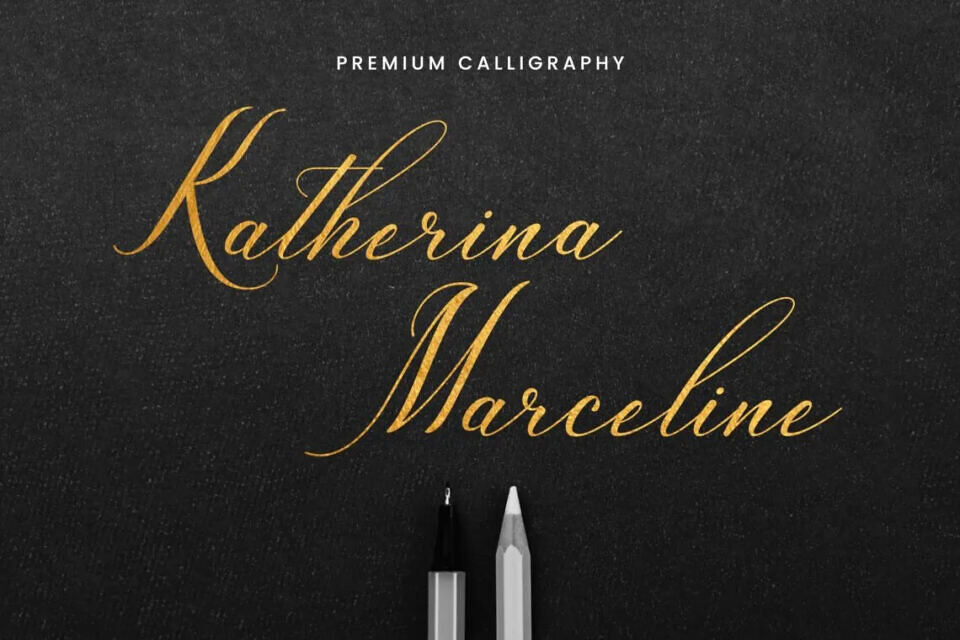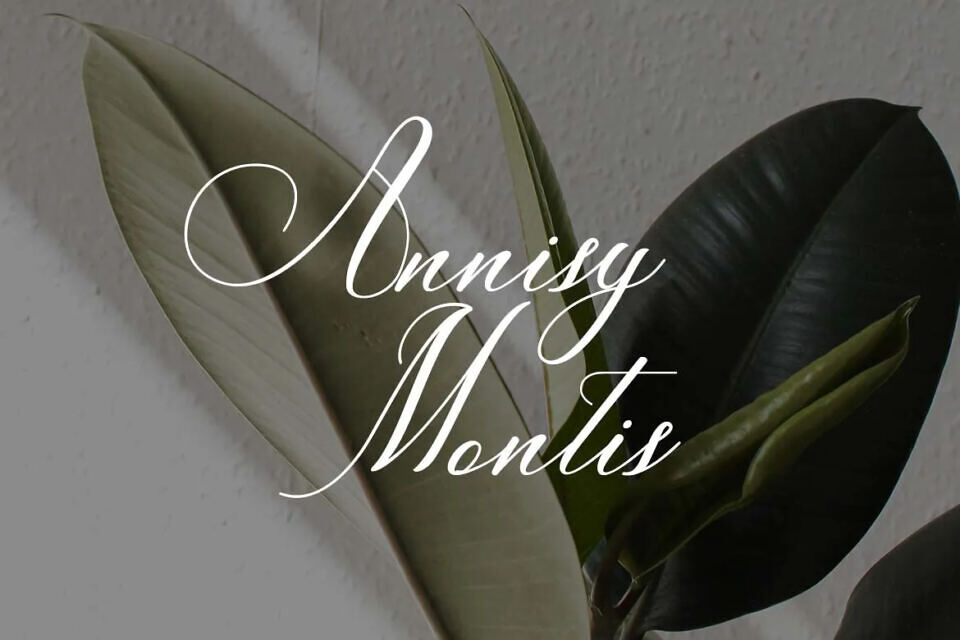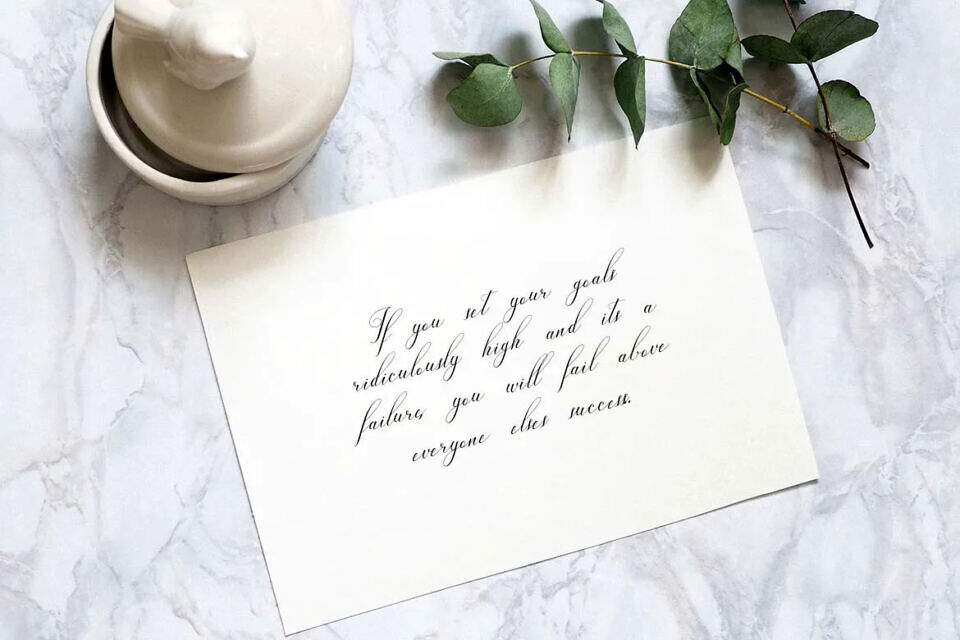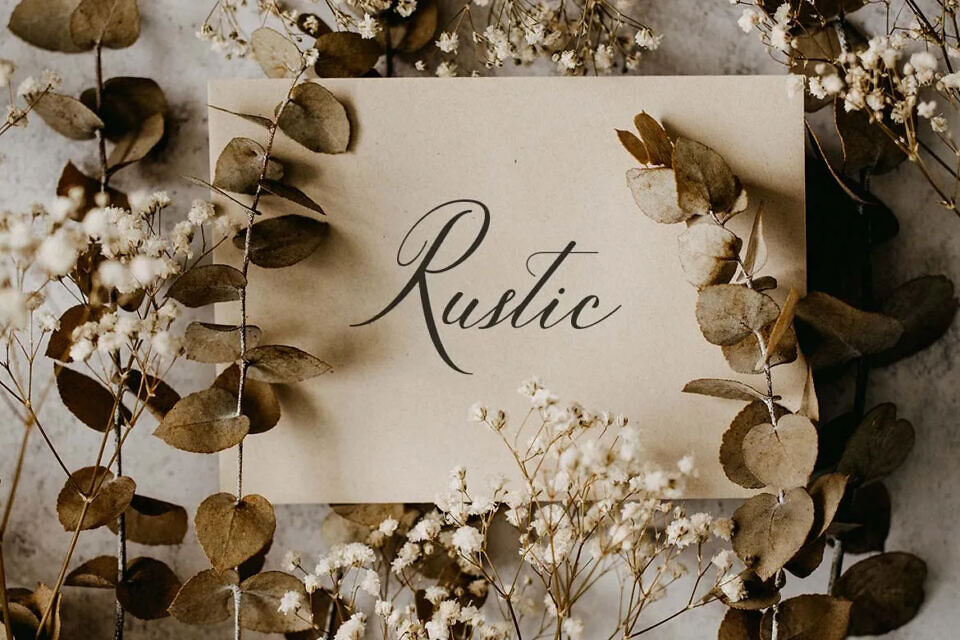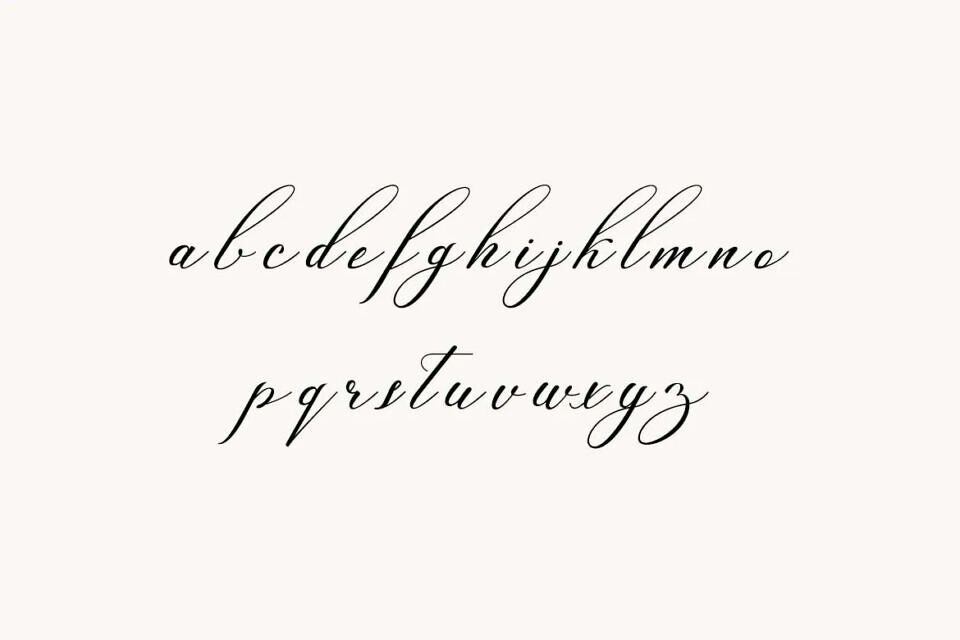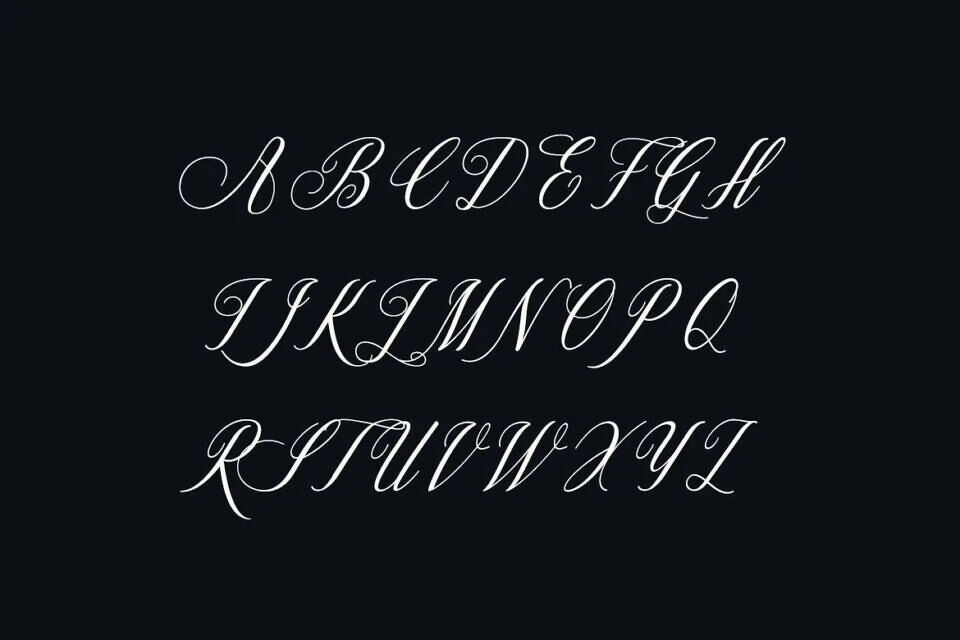
Katherina Marceline is a sophisticated calligraphy font that exudes elegance and style. Suitable for various projects, it works well for signatures, logos, and editorial designs. Its versatile aesthetic blends masculine and feminine touches, making it ideal for fashion-related branding, websites, and publications. This font adds a touch of class to any design, from wedding stationery to magazine covers.